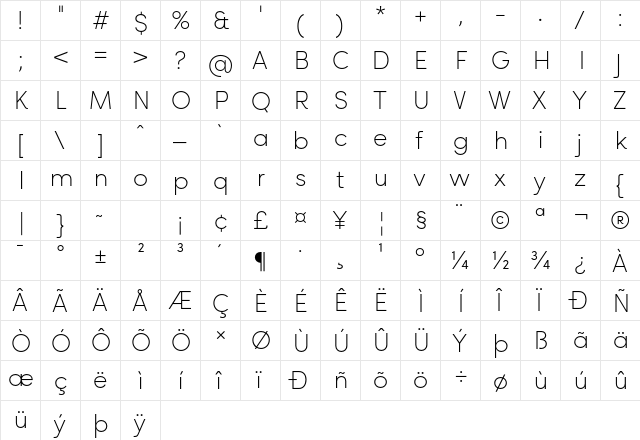
Rozanova GEO - Demo Thin
| Foundry | Variable Type Foundry |
| Designer | Variable Type Foundry |
Design Context for Rozanova GEO - Demo Typeface
Rozanova GEO - Demo offers clean, dependable letterforms without strong stylistic allegiance, making it a practical choice for designers who need flexibility. Its slender proportions lend an understated elegance to any composition.